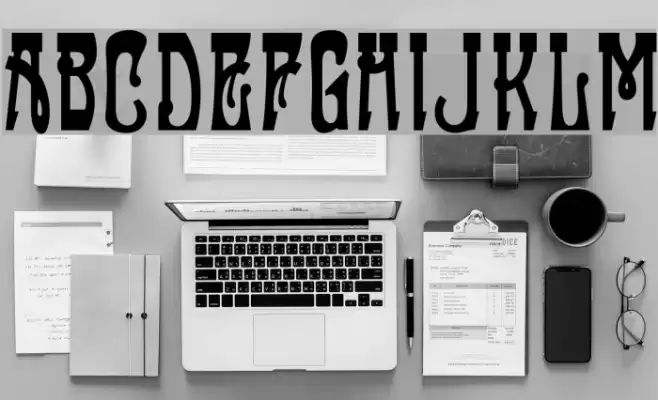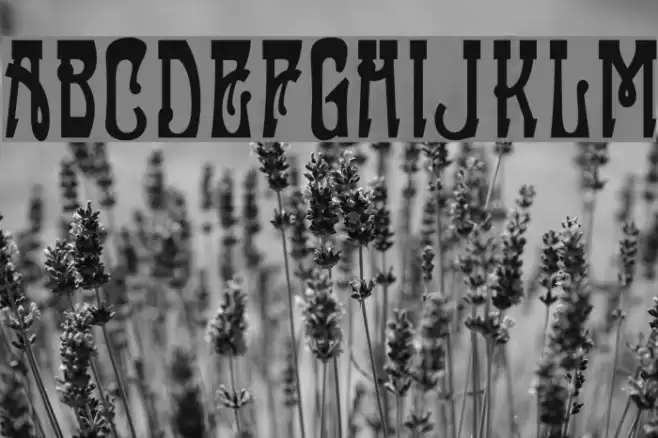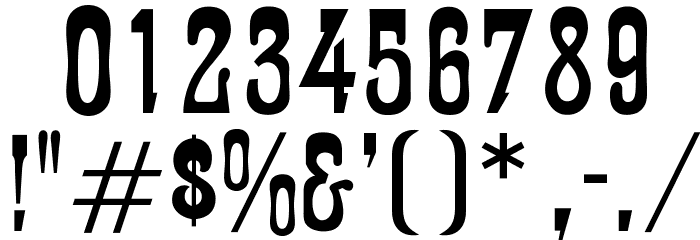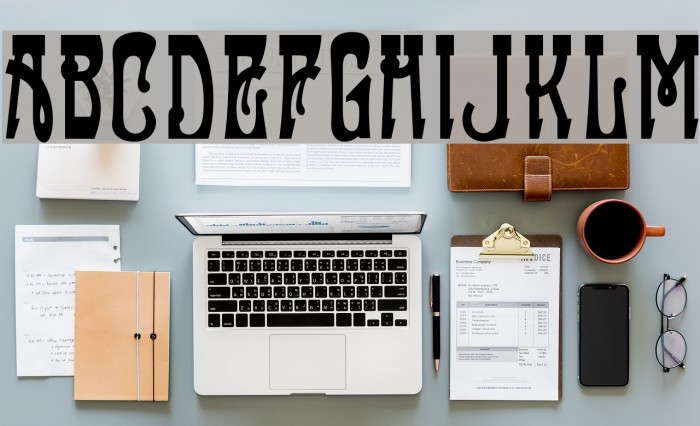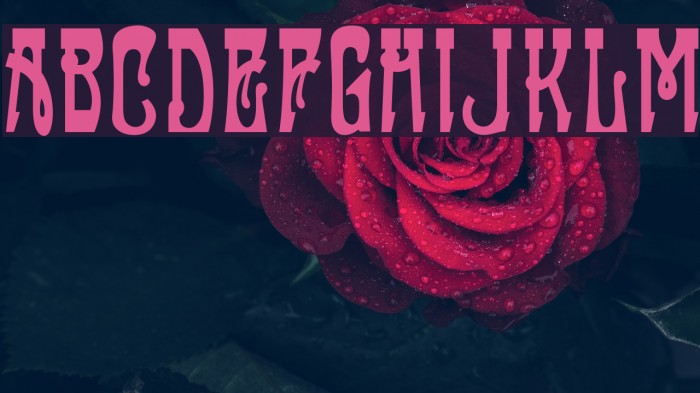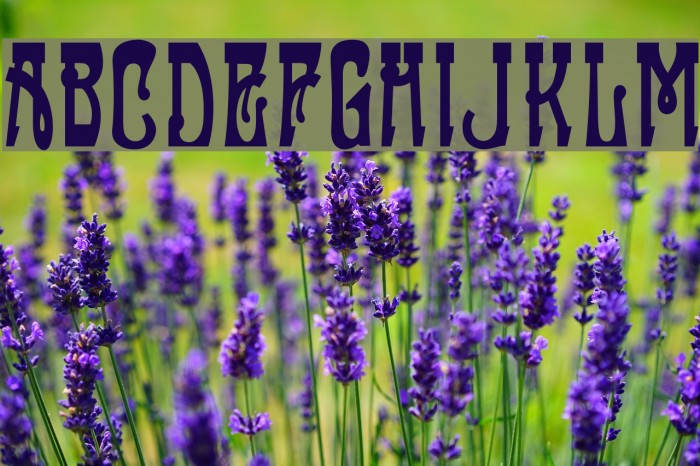
OPTIFanfare Font
OPTIFanfare Description
This font is a bold and decorative typeface with a unique and playful style. Each character is designed with a mix of thick and thin strokes, creating a dynamic and eye-catching appearance. The uppercase letters feature exaggerated serifs and whimsical curves, giving them a distinct personality. The numbers and special characters maintain the same boldness and decorative flair, ensuring consistency throughout the typeface. This font is ideal for projects that require a strong visual impact and a touch of creativity.
A bold, decorative typeface with whimsical curves and exaggerated serifs from Uncategorized fonts.
- Proposed Projects: Ideal for posters, logos, branding, and any project that requires a bold and creative typeface.